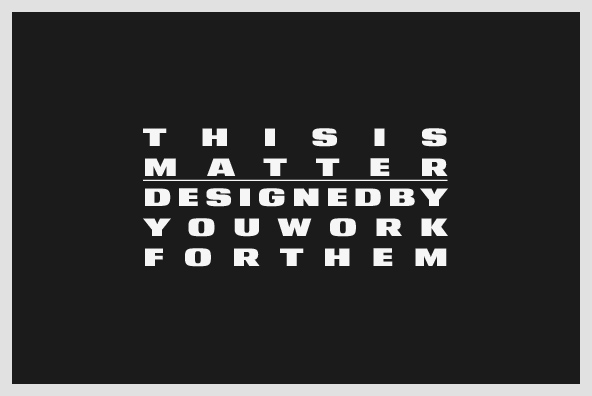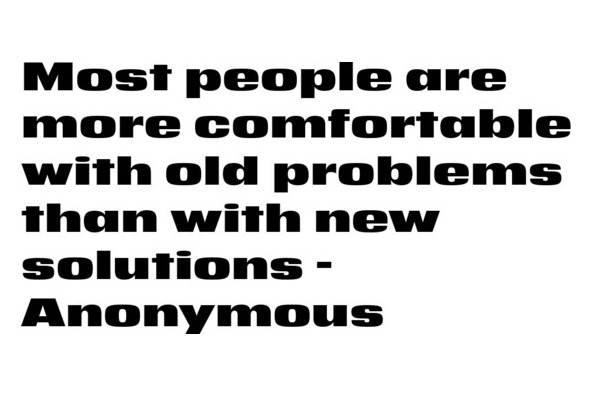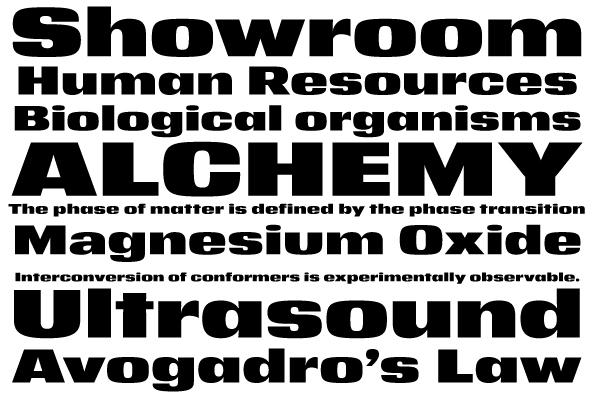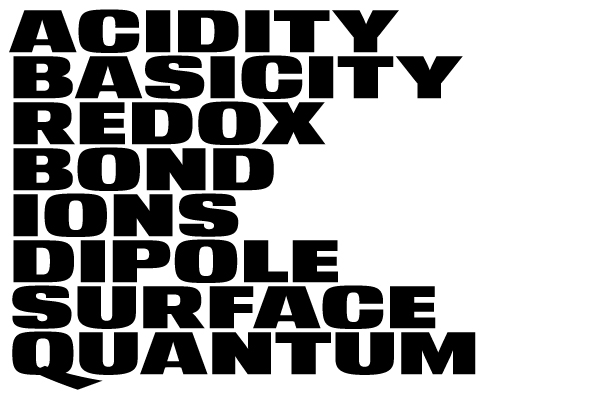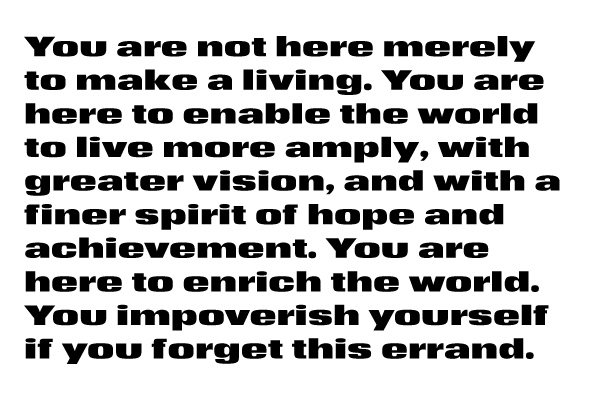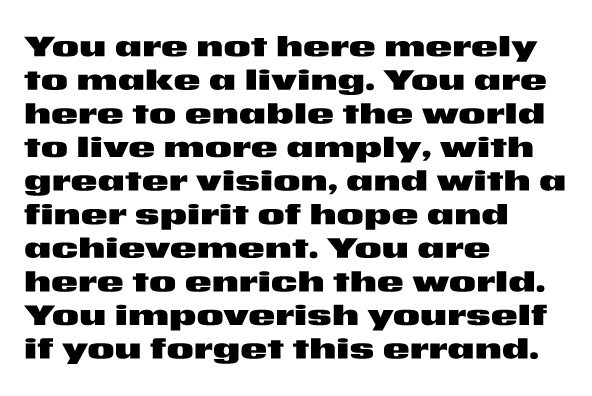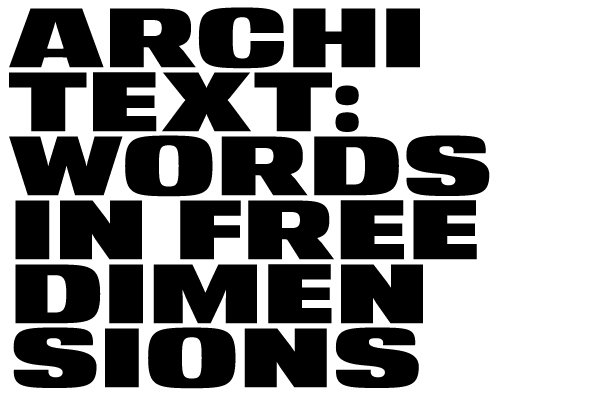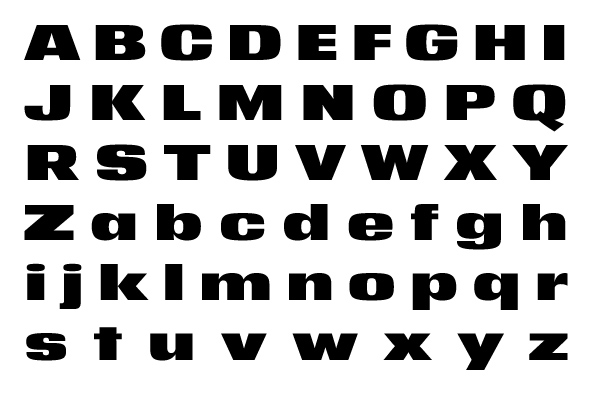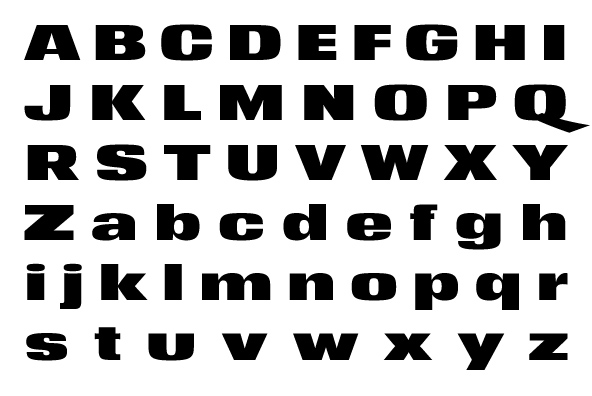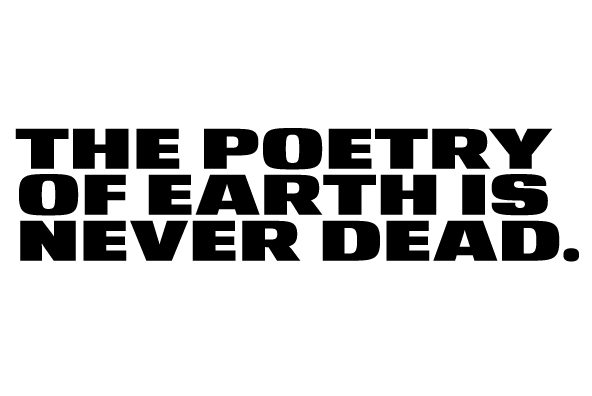
YWFT Matter
Font Family by YouWorkForThem
Take the Matter into your own hands. YWFT Matter, that is--a wide, bold and grotesque typeface design based on several concepts from Victorian-era science texts and manufacturing/marketing materials. YWFT Matter features alternate characters, like a "two-story" lowercase "a," that are easy to toggle using Opentype. YWFT Matter works great for editorial headlines and identity designs requiring a unique-yet-classic typographic solution. Also works well for things that really Matter. (Sorry, we couldn't resist.) Designed exclusively by Michael Cina and YouWorkForThem.